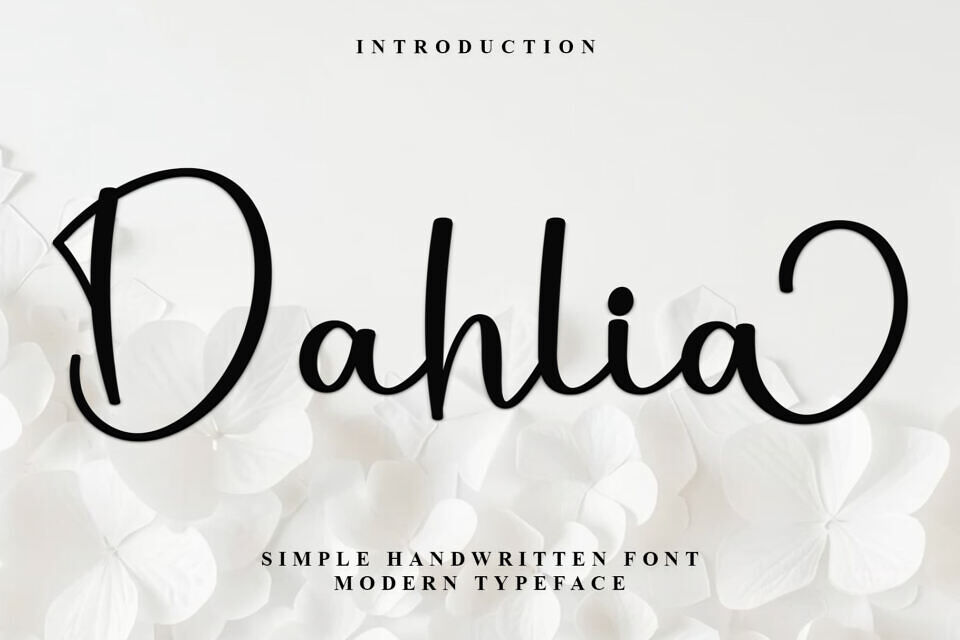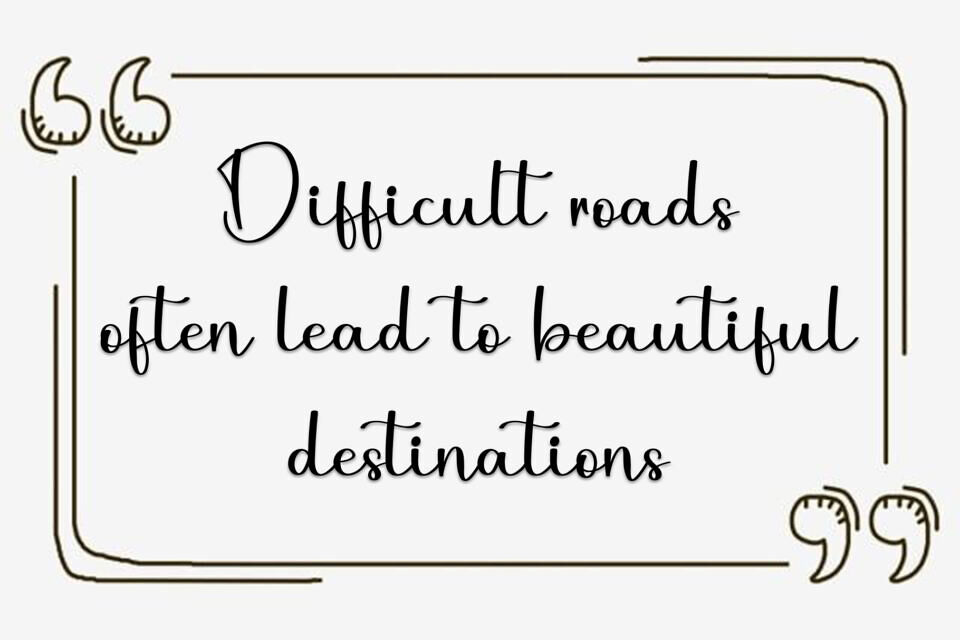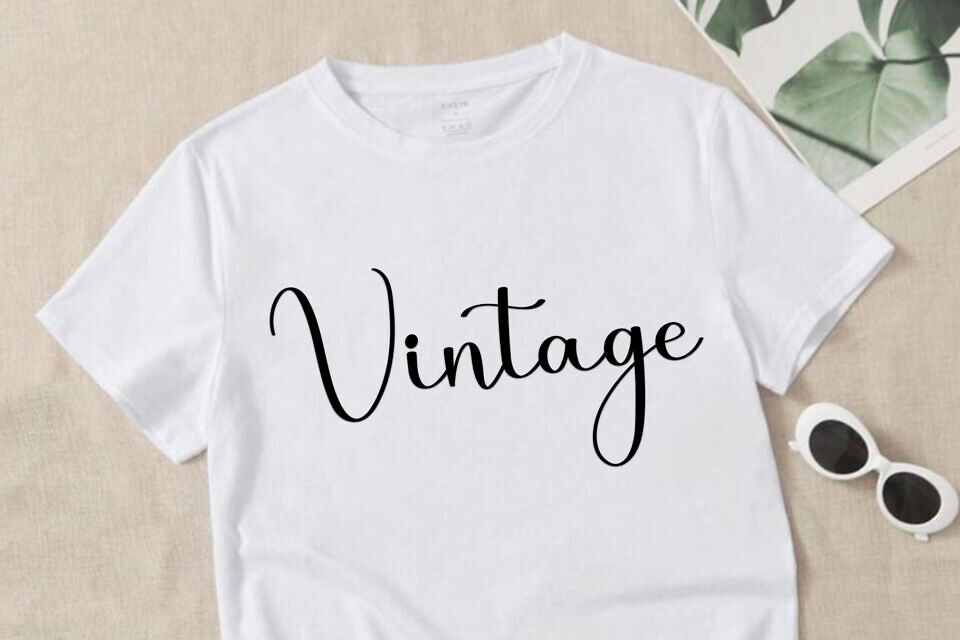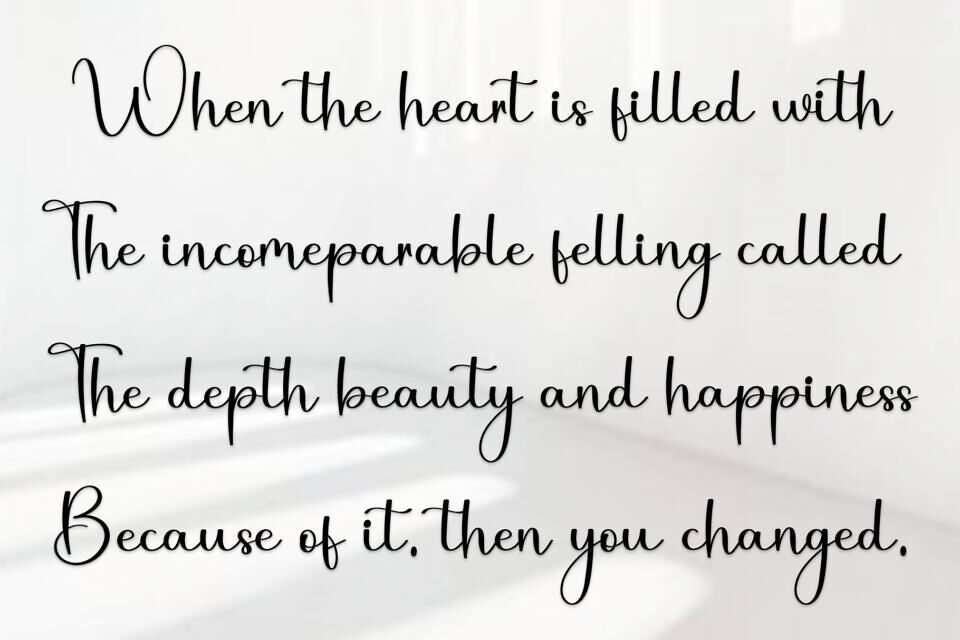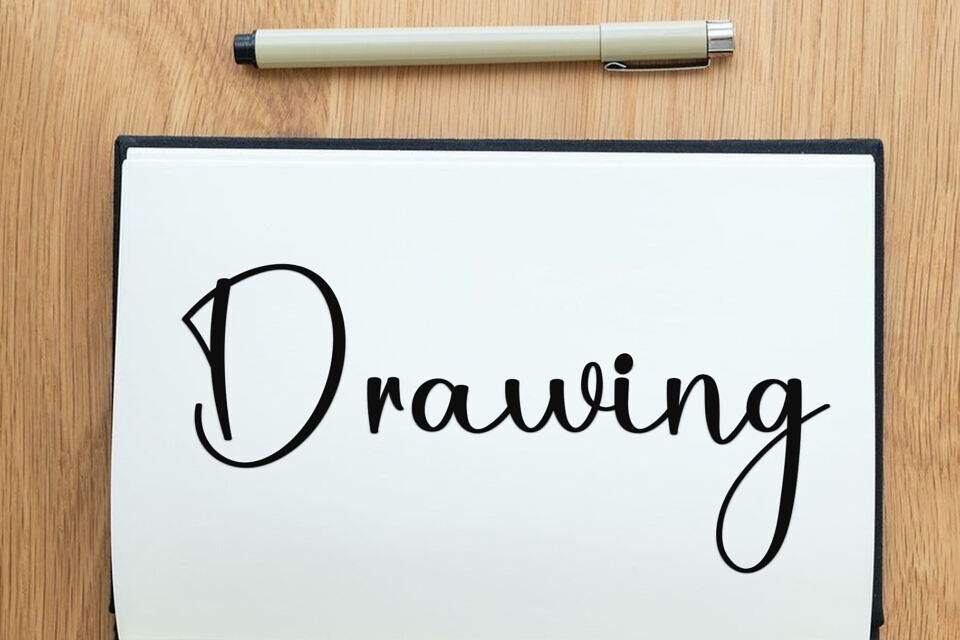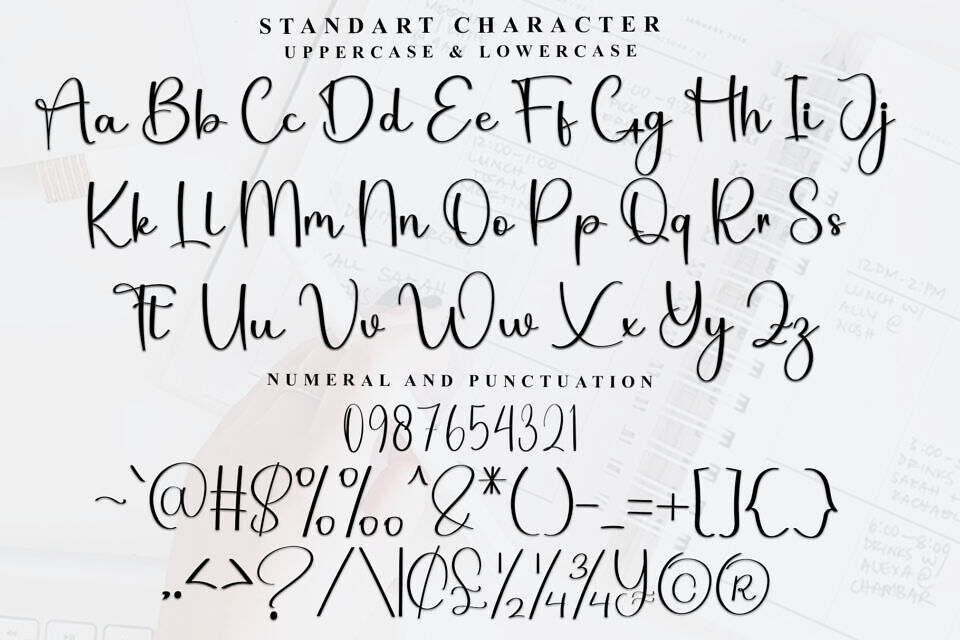
Dahlia Font
Dahlia Font is a beautiful, elegant script typeface featuring graceful curves and stylish swashes that give your text a handwritten, sophisticated appearance.
Perfect for invitations, logos, wedding stationery, greeting cards, and branding, Dahlia adds a romantic and artistic touch to any design project. Its fluid strokes and carefully crafted letterforms create a sense of charm and femininity.